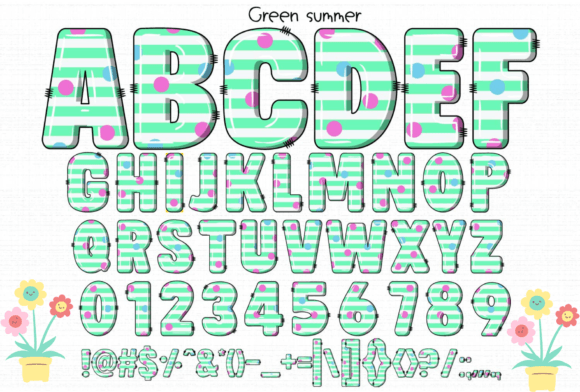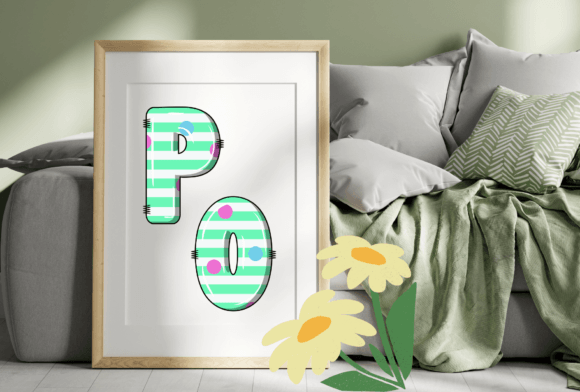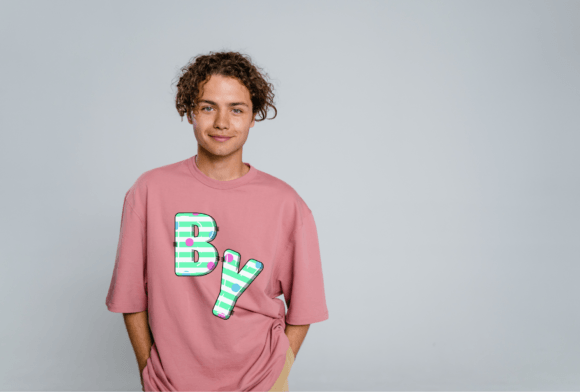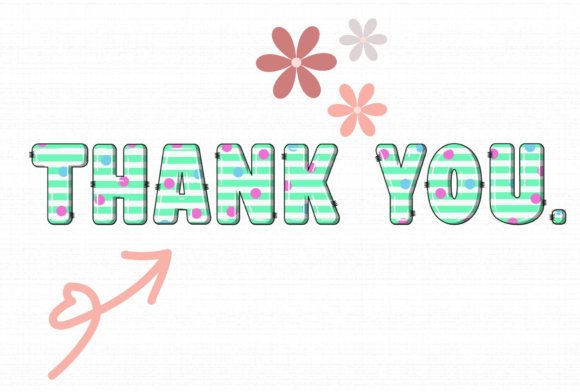
Introducing Green Summer Font: Add a Splash of Fun to Your Designs
Are you looking for a font that captures the essence of summer and injects a dose of fun into your designs? Look no further than the Green Summer Font! This delightful, decorative font is perfect for designers and crafters who want to add a cheerful touch to their projects.
What Makes Green Summer Font So Special?
The Green Summer Font is a lively and playful font that features green letters with striped patterns, accompanied by small purple circles. This unique combination gives off a cheerful, summery vibe that’s sure to brighten up any design. Whether you’re working on a summer-themed project, a kids’ party invitation, or simply want to add some whimsy to your graphics, this font is an excellent choice.
Compatibility and Uses
Why Designers and Crafters Love Green Summer Font
So, what makes Green Summer Font a favorite among designers and crafters? Here are just a few reasons:
- Unique and eye-catching: The striped patterns and purple circles on the green letters make this font truly stand out.
- Versatile: Use it for summer-themed projects, kids’ party invitations, or add a playful touch to your graphics and branding.
- Fun and cheerful: The Green Summer Font is sure to bring a smile to your face and add a dash of fun to your designs.
Tips for Using Green Summer Font
To get the most out of Green Summer Font, here are a few tips:
- Experiment with colors: While the font looks great in its original green and purple color scheme, feel free to experiment with different colors to match your brand or design.
- Mix and match: Combine Green Summer Font with other fonts to create a unique and playful look.
- Use it for titles and headings: The Green Summer Font is perfect for titles and headings, adding a touch of whimsy and fun to your text.
In conclusion, the Green Summer Font is a fantastic addition to any designer’s or crafter’s toolkit. Its unique and eye-catching design, versatility, and ease of use make it perfect for a wide range of projects. Whether you’re working on a summer-themed design or simply want to add some fun to your graphics, this font is sure to deliver. So why not give it a try and see how Green Summer Font can bring a splash of fun to your designs?